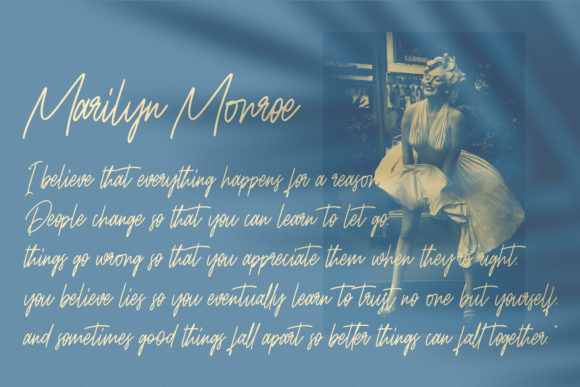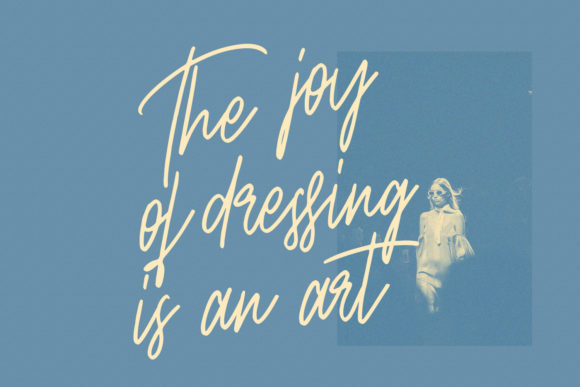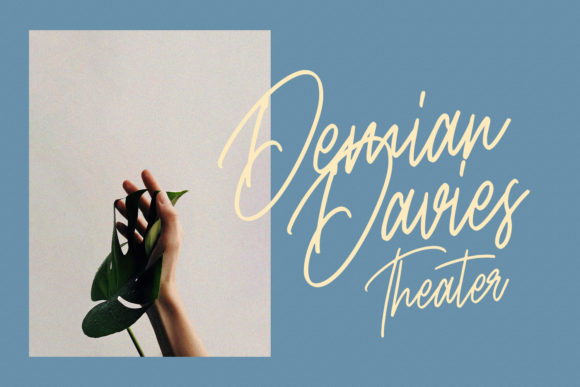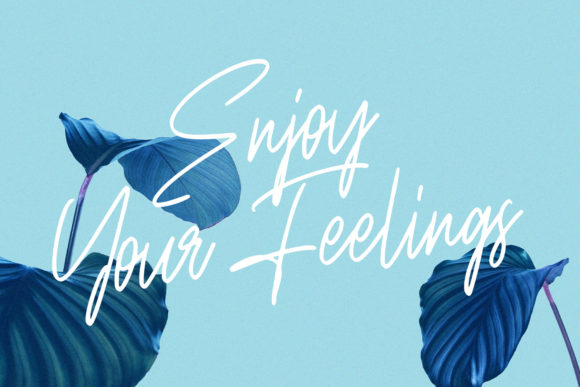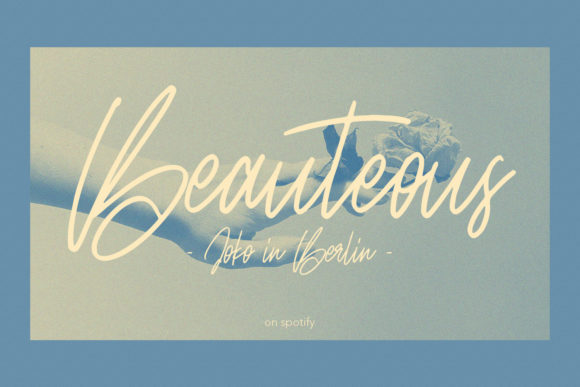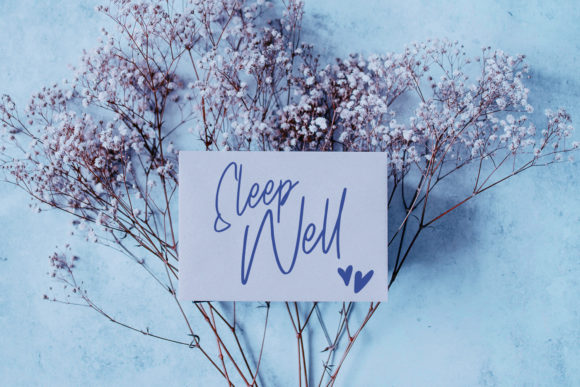
The Perfect Font for a Personal Touch
Have you ever stared at a blank canvas, waiting for the perfect font to bring your design to life? We’ve all been there. For designers, finding the right font can be the difference between a beautiful piece of art and a mere afterthought. One font that has been making waves in the design community is the Bellmounts Font – a relaxed, thin, and stylish script font that exudes elegance and sophistication.
Bellmounts Font is perfect for designers looking to add a personal touch to their designs. Whether it’s a wedding invitation, a thank you card, or a logo, this font brings a level of sophistication and refinement that’s hard to find elsewhere. Its versatility makes it a valuable addition to any designer’s toolkit, and its unique style is sure to set your designs apart from the crowd.
Bellmounts Font Key Features
- Font Family: Bellmounts
- Unique Characteristics:
- Elegant, vintage-inspired design with intricate details
- Highly legible and readable in both print and digital formats
- Language Support: Supports multiple languages, including Latin, Cyrillic, and Greek scripts
Bellmounts Font Review
As a designer, I was excited to dive into the world of Bellmounts Font, a new addition to the font family. After putting it through its paces, I’m happy to share my honest review.
- Unique character set: Bellmounts Font offers a wide range of unique characters that add a touch of whimsy to any design.
- Legibility: The font is highly legible, making it perfect for body text and longer pieces of content.
- Customization options: Bellmounts Font offers a range of customization options, including font weights, sizes, and styles.
- Consistency issues: While the font is highly legible, I did notice some consistency issues with certain characters, particularly in the italics.
- Lack of bold weights: While Bellmounts Font offers a range of font weights, I found that the bold weights were somewhat lacking in terms of contrast and definition.
- Not ideal for display headings: While the font is great for body text, I found that it didn’t quite shine in display headings, where a bolder, more dramatic font might be preferred.
Overall, I’m impressed with Bellmounts Font, but I do think it has some areas for improvement. With a bit more work on consistency and bold weights, I think it could be a top contender in the font family.
Bellmounts Font is ideal for creating elegant and sophisticated designs. Use it for wedding invitations, luxury brand logos, or high-end marketing materials. The font’s unique characteristics make it perfect for adding a touch of sophistication and elegance to your designs.
Tips for Getting the Most Out of Bellmounts Font
To get the most out of Bellmounts Font, experiment with different font sizes, colors, and styles to find the perfect combination for your design. You can also pair the font with other elegant fonts to create a unique and sophisticated look.
Alternatives to Bellmounts Font
Montserrat is a modern sans-serif font designed by Julieta Ulanovsky. It is a versatile font suitable for digital use and is particularly effective for headings and body text. Montserrat is a more geometric and clean font compared to Bellmounts, making it ideal for modern designs and websites.
Playfair Display is a luxurious and elegant serif font designed by Claus Eggers Sørensen. It is perfect for creating a high-end feel and is often used in luxury brands and magazines. Unlike Bellmounts, Playfair Display is more ornate and refined, making it suitable for formal designs and print materials.
Merriweather is a classic serif font designed by Eben Sorkin. It is a timeless and elegant font that is suitable for both body text and headings. Merriweather is more traditional and formal compared to Bellmounts, making it ideal for academic and professional designs.